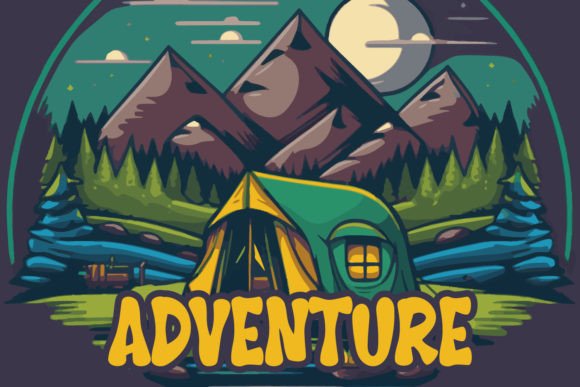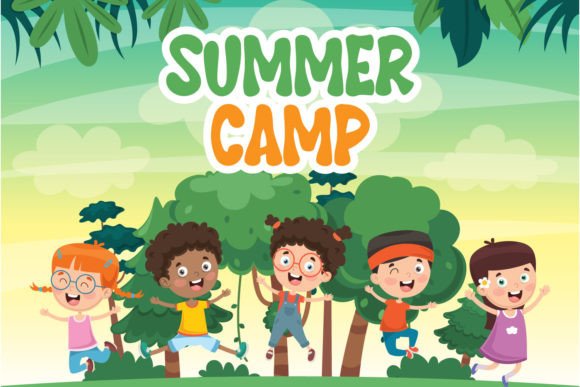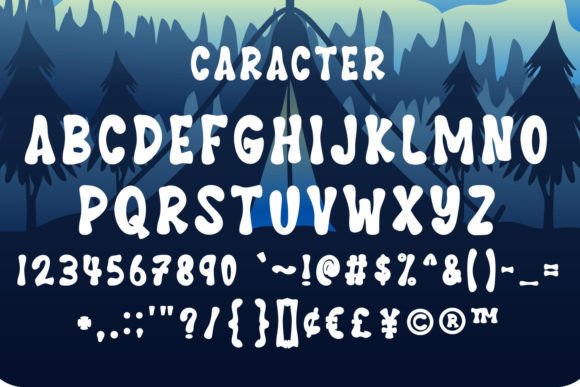
Summer Explore Font
Summer Explore is a cute and fun display font. No matter the topic, this font will be an incredible asset to your fonts' library, as it has the potential to elevate any creation.